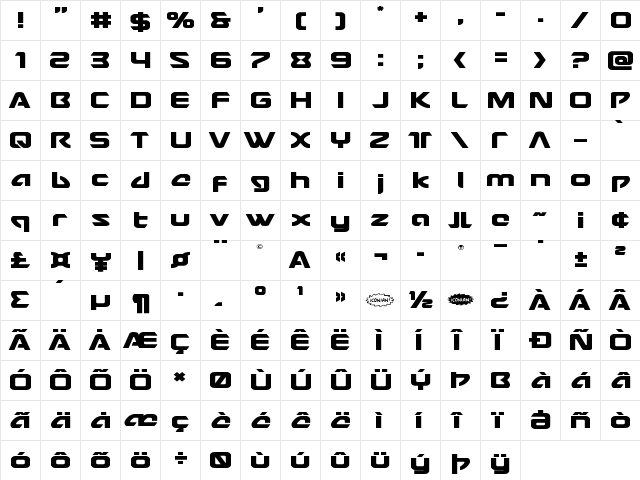
USAngel Expanded Expanded
Design Context for USAngel Expanded Typeface
USAngel Expanded is a composed and adaptable typeface that performs quietly and consistently across a wide range of design contexts.
Pro Tip: Use USAngel Expanded in both headline and body roles to test its range before committing to a single application.